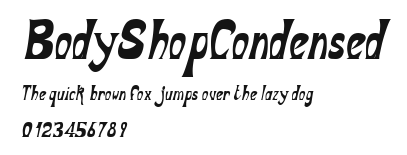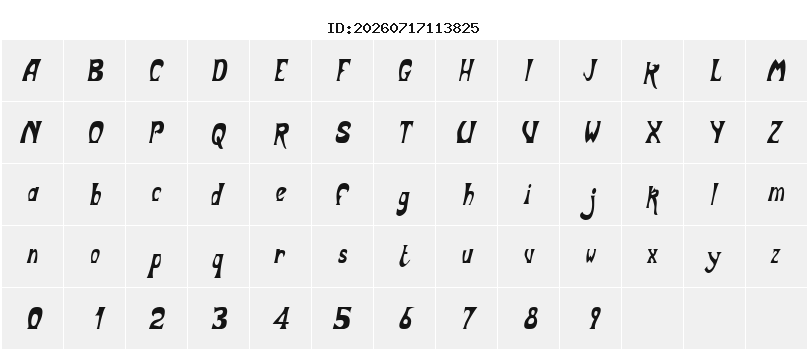
• Font Name: BodyShopCondensed
• Font Style: Oblique
About BodyShopCondensed.ttf
BodyShopCondensed.ttf is a modern, elegant sans-serif font designed for ultimate readability and visual harmony. Perfect for branding, headlines, web design, and print materials.